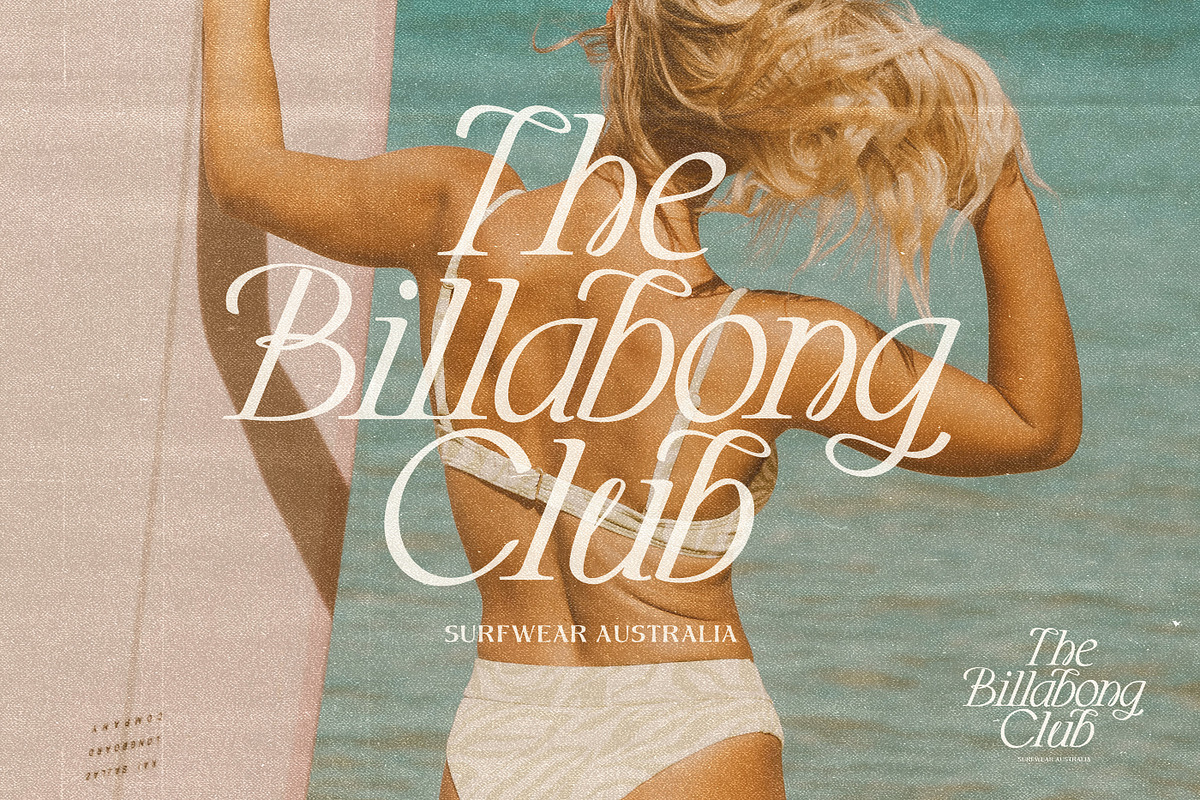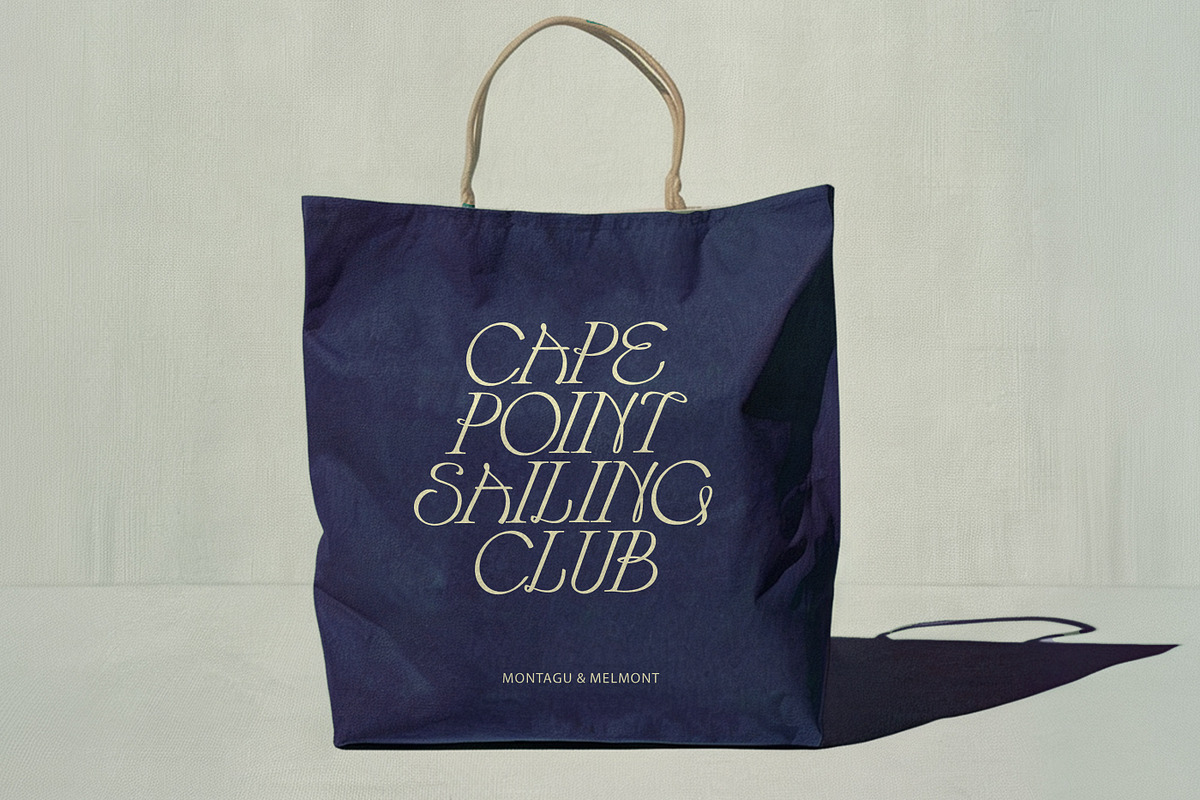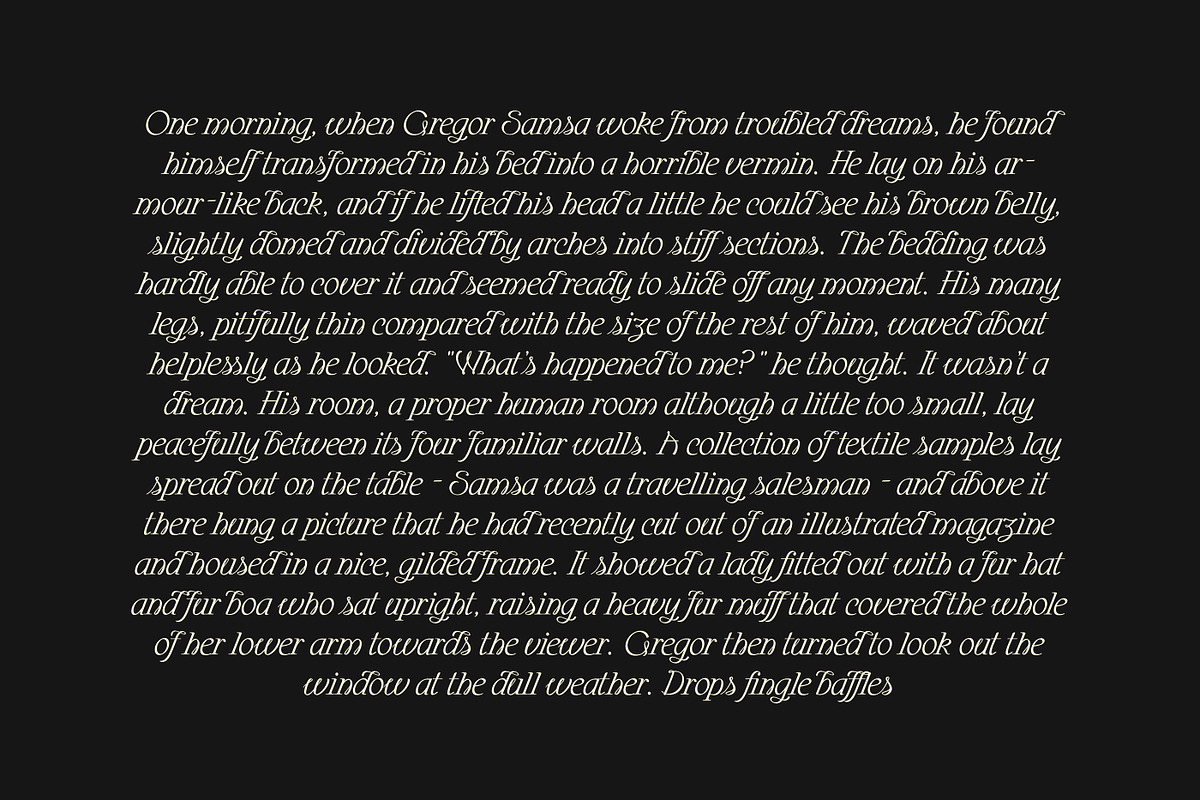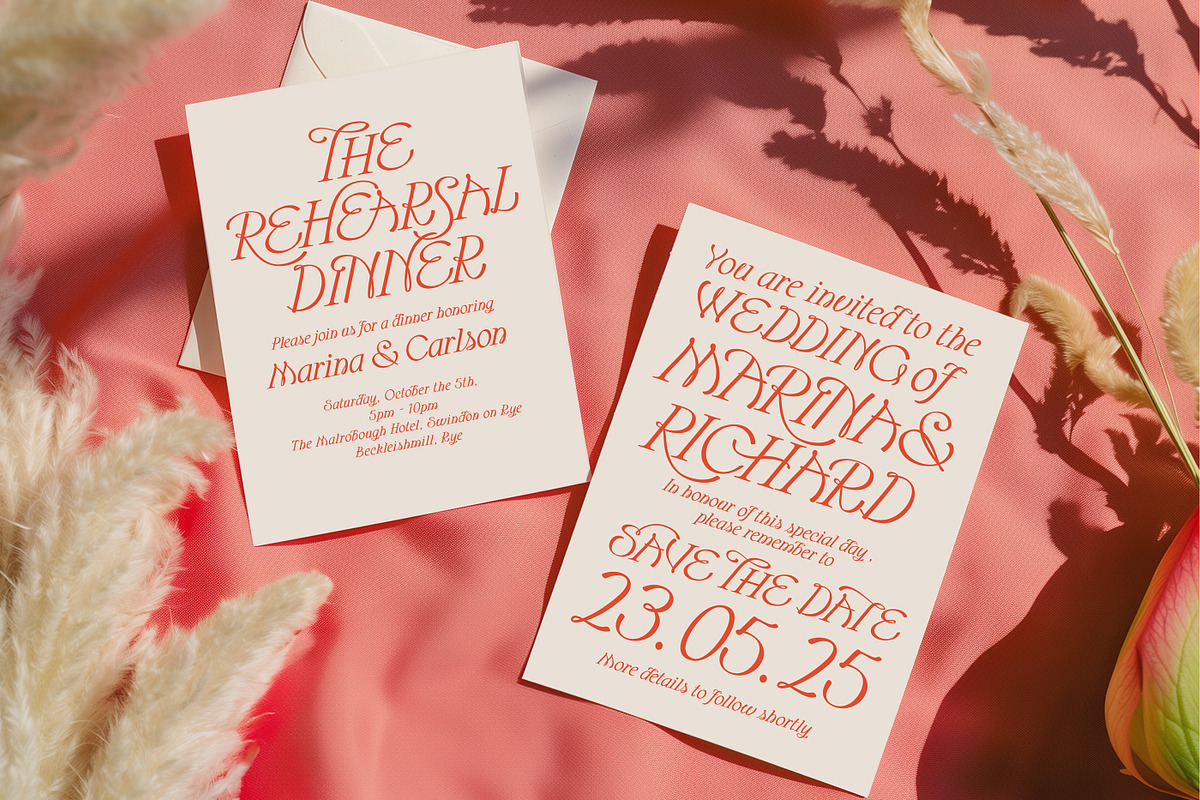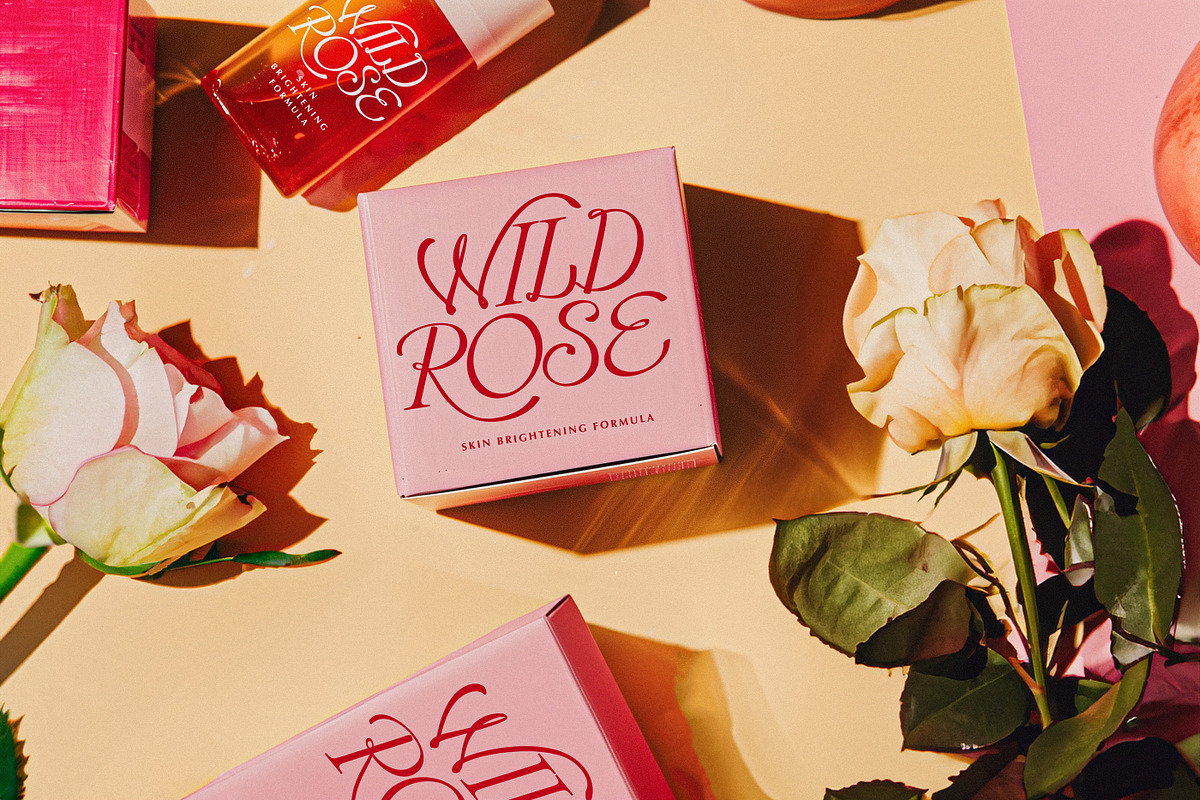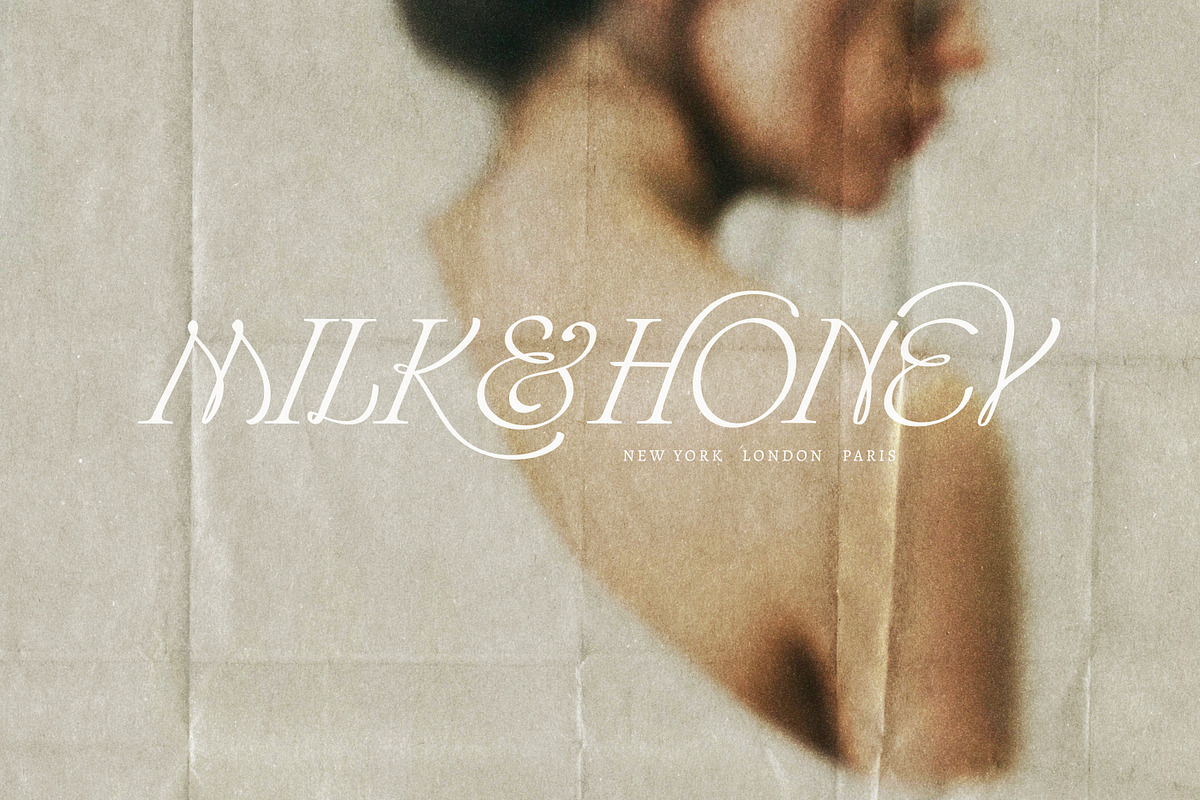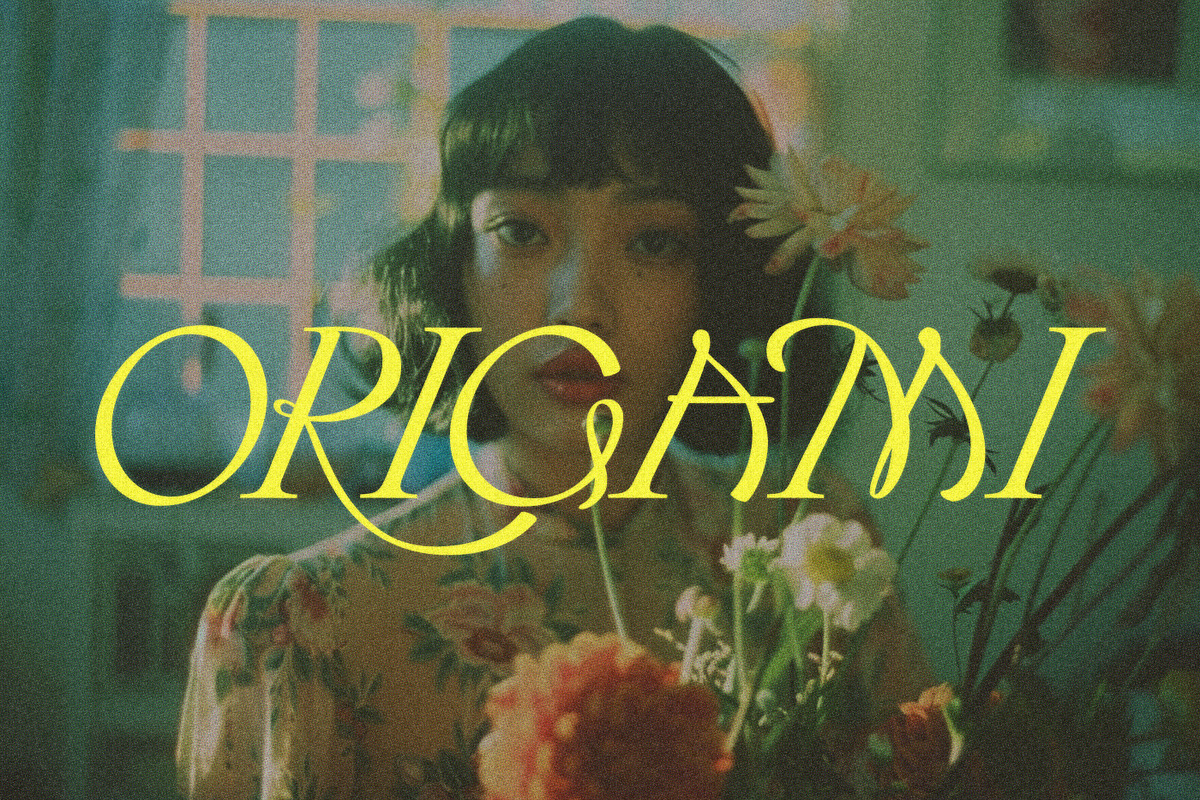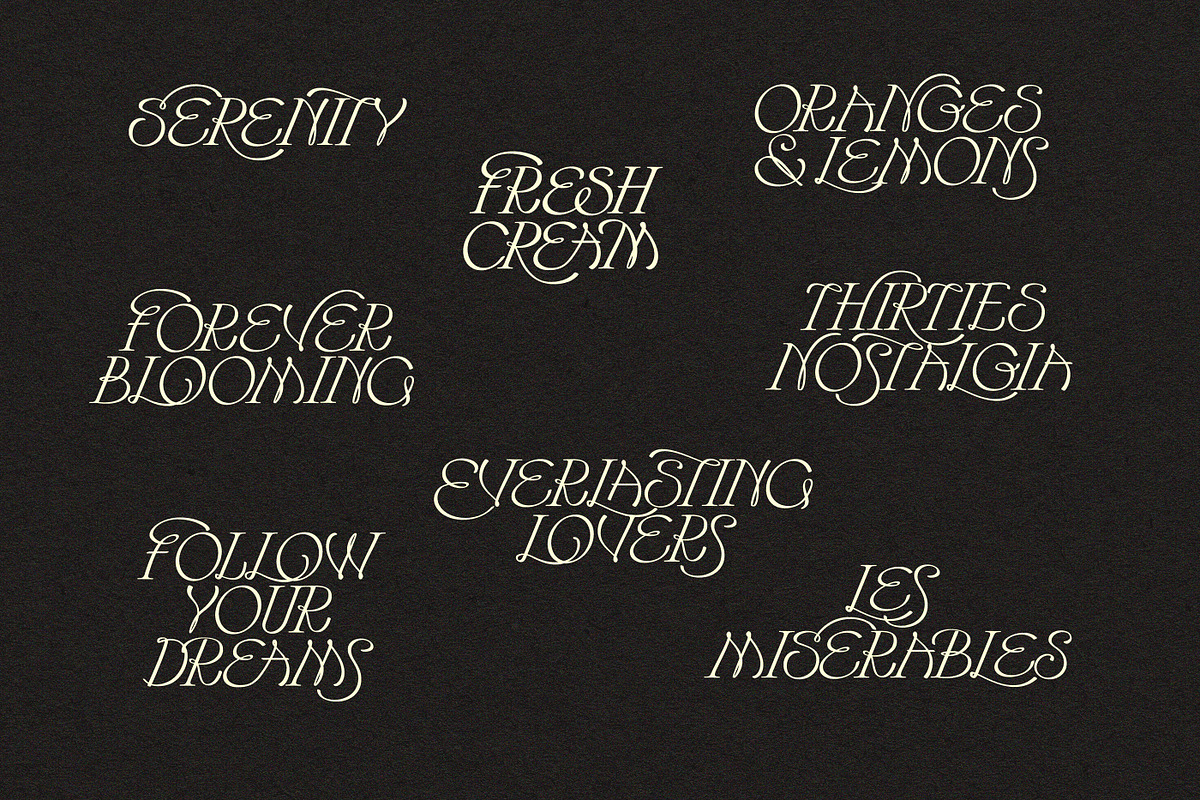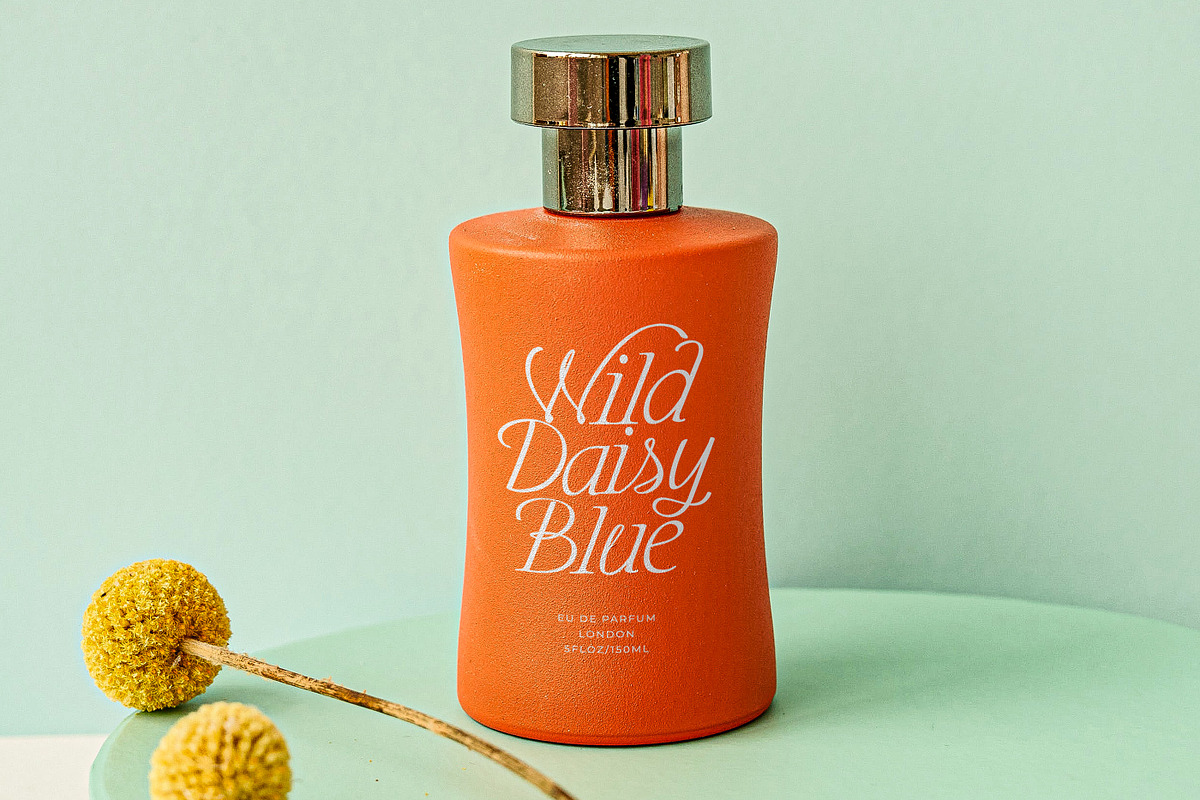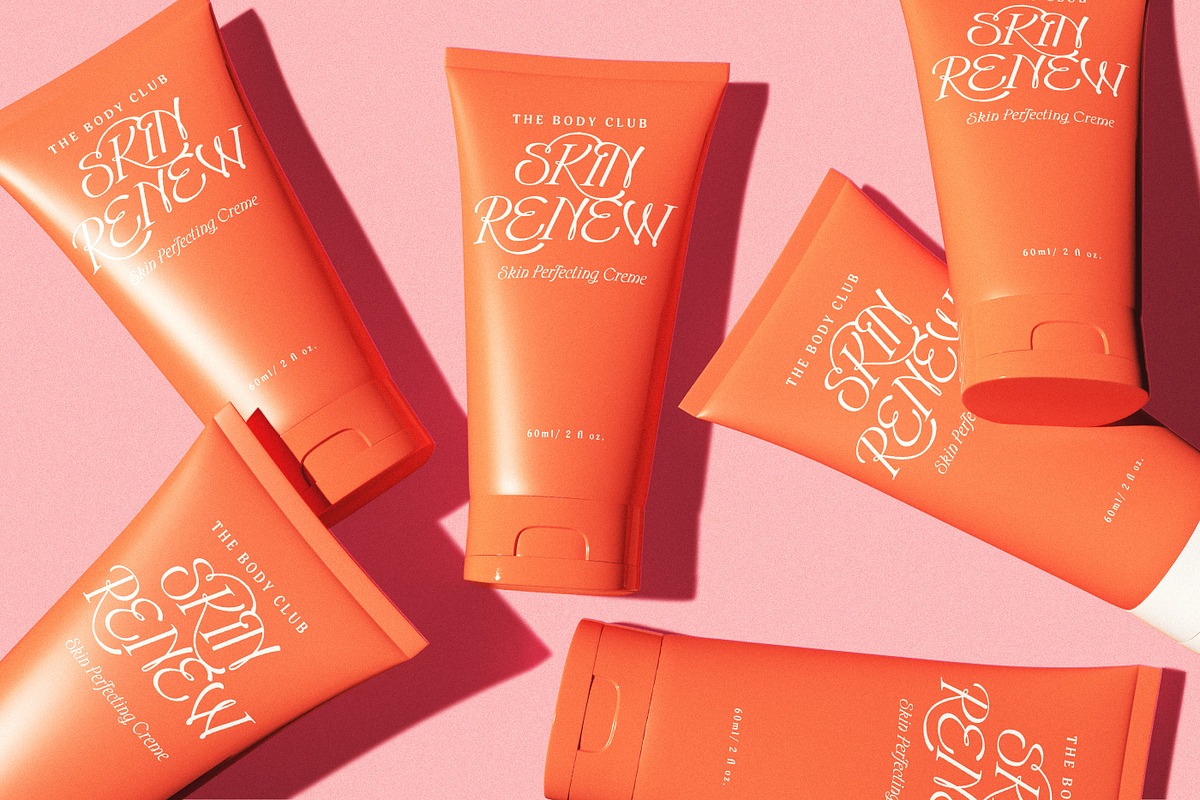
Hearts Entangled Display Typeface
Say hello to ‘Hearts Entangled’ - Where timeless, romantic calligraphy meets a traditional serif, creating an expressive, flamboyant fusion of elegance and decorative artistry.
Hearts Entangled is adorned with ornate swoops and swashes that evoke the charm of Art Nouveau and Victorian-era typography. Its delicate, flowing strokes and smooth curves create a graceful and fluid aesthetic, ensuring that your text exudes a sense of classic beauty and vintage nostalgia.
Designed with high contrast between thick and thin strokes,Hearts Entangled delivers a dramatic and stylish impact, perfect for luxury branding, elegant invitations, and high-end editorial designs.
Opentype Extras : Be spoiled for choice with the 97 custom additional glyphs you can choose from , in the forms of Opentype ligatures, discretionary ligatures, and stylistic alternates - All accessible via Opentype. (Opentype capable software - such as Photoshop, Illustrator, Word, Figma etc.)
This Typeface has 5 extra' VERY SLIGHT' weight variants - which help when using the type as bigger and smaller sizes. Please note these are not 'light' to 'bold' in the traditional sense - but rather very slight changes in the types weight.